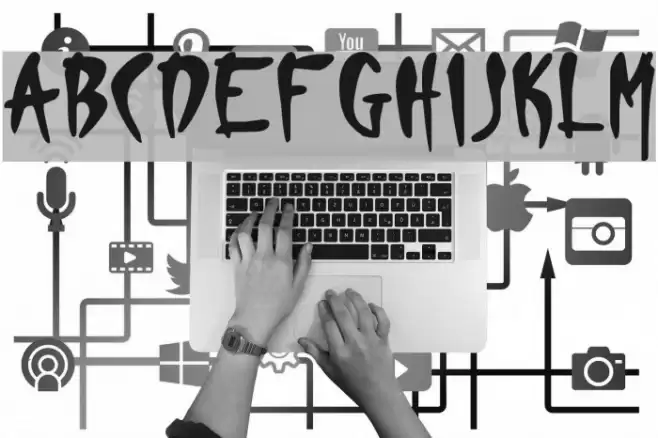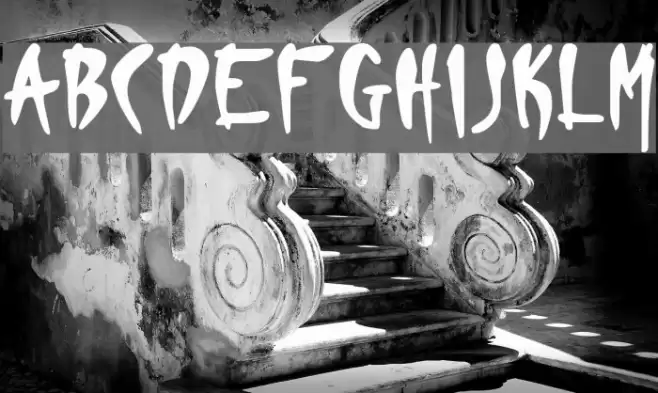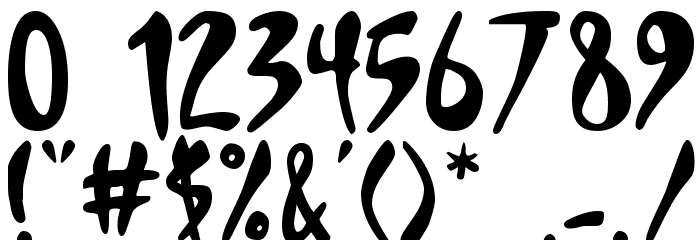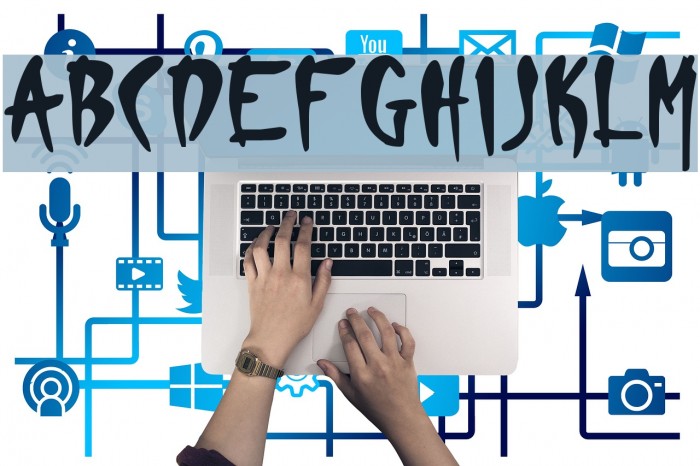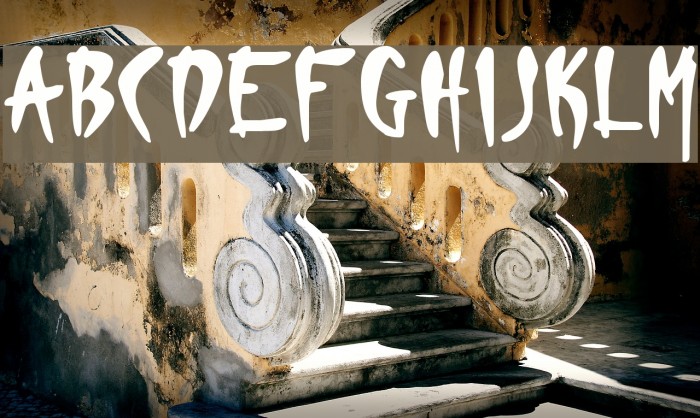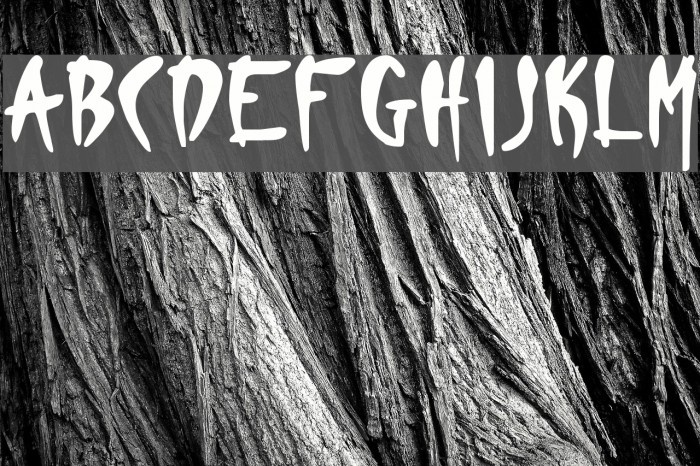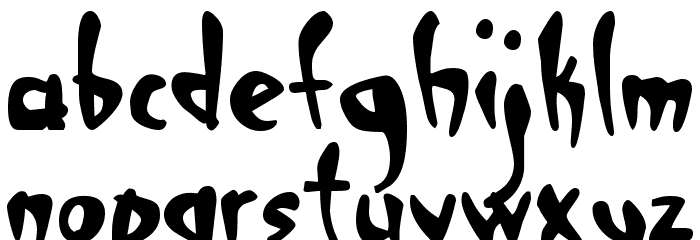
Deranger Font
Deranger Description
This font features a bold and expressive style with a hand-drawn appearance. The characters are irregular and dynamic, giving a sense of movement and energy. The uppercase letters are tall and slightly narrow, while the lowercase letters maintain a playful and whimsical form. The numbers are equally bold, with a unique flair that matches the overall aesthetic. Special characters are creatively designed, adding to the font's distinctive personality. This font is ideal for projects that require a lively and unconventional look.
A bold, hand-drawn font with an energetic and playful style from Uncategorized fonts.
- Proposed Projects: Great for posters, album covers, children's books, and creative branding.